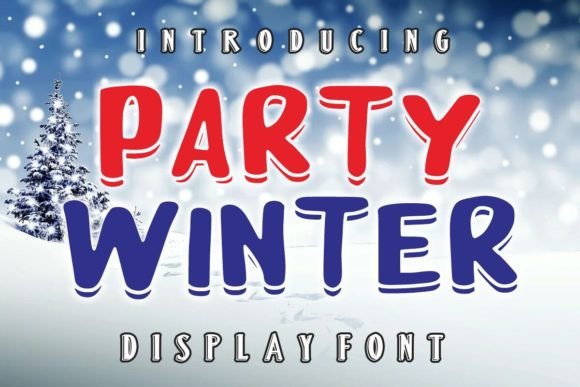
Introducing Party Winter Font, the ultimate font for all your advertising design needs! Created by the talented artists at Infinity Art Studio, this font is the perfect companion for your winter and holiday branding projects, product packaging, invitations, quotes, t-shirts, labels, posters, and logos.
Party Winter Font is all about fun and festivity. Its unique and captivating design will instantly grab your audience's attention, making your message stand out from the crowd. With its playful curves and stylish strokes, this font exudes a sense of joy and excitement that is sure to resonate with your target audience.
Imagine the impact of using Party Winter Font in your advertising campaigns. Its whimsical charm will evoke feelings of warmth and nostalgia, instantly transporting your customers to cozy winter nights and joyful holiday celebrations. Whether you're promoting a special offer, announcing a seasonal sale, or simply spreading festive cheer, Party Winter Font will help you create a captivating visual experience that leaves a lasting impression.
Not only does Party Winter Font look great, but it's also incredibly versatile. Its compatibility with various design software ensures seamless integration into your creative workflow. Whether you're a professional designer or a DIY enthusiast, you'll find Party Winter Font easy to use and customize to suit your unique style.
In conclusion, Party Winter Font is the go-to choice for anyone seeking to infuse their designs with a sense of winter wonder. Its eye-catching appeal, versatility, and emotional impact make it the perfect addition to your font collection. Download Party Winter Font today and let your creativity soar!